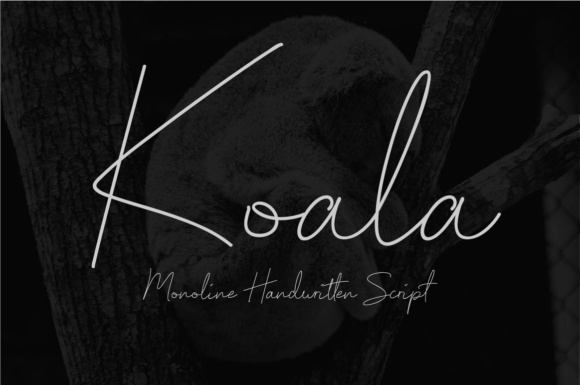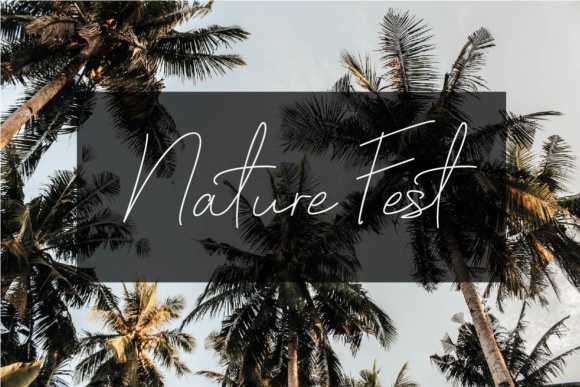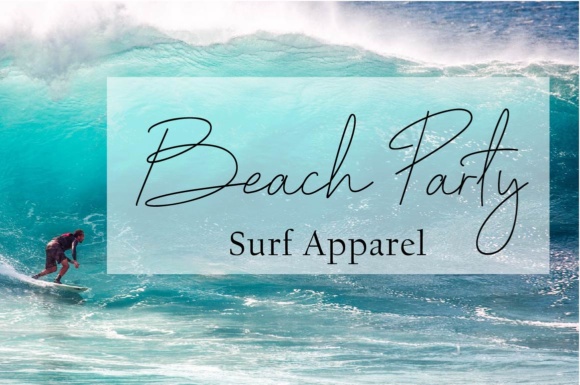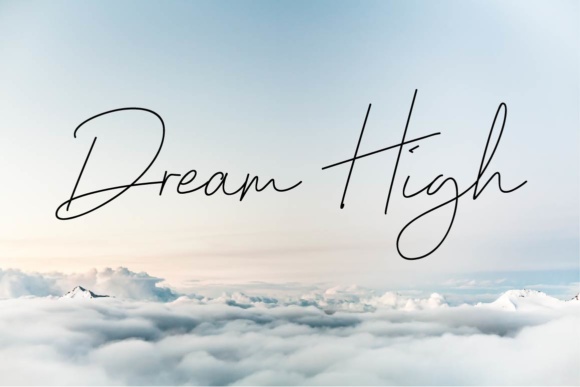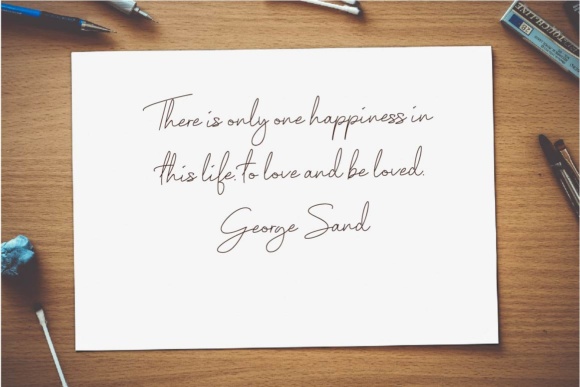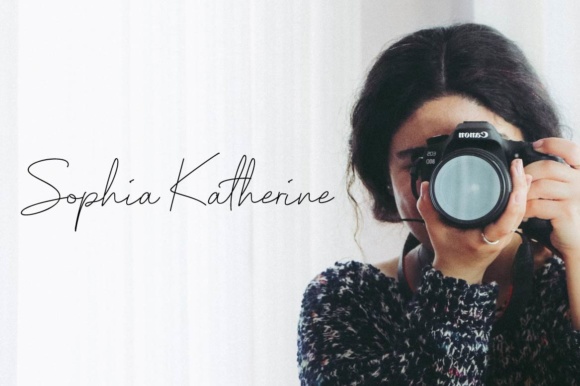
Koala Script Font
About Koala Script Font
This is Koala, a monoline handwritten font. It’s suitable for many design projects, such as: blogs, headers, branding, book / cover titles, and much more.